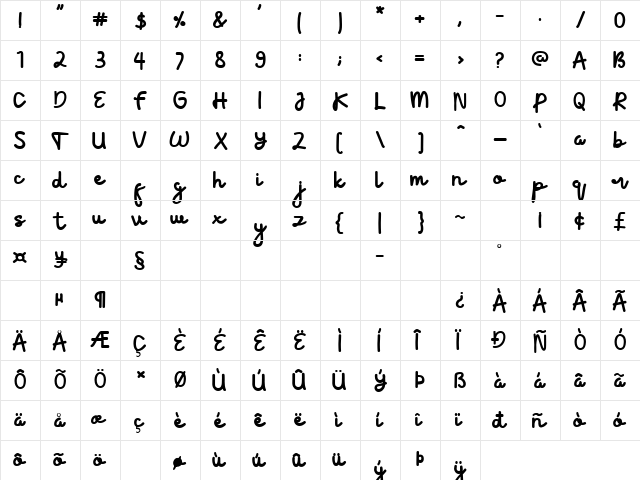
Velonia Regular
| Designer | Muhammad Isa Sulaiman |
Design Context for Velonia Typeface
Velonia offers clean, dependable letterforms without strong stylistic allegiance, making it a practical choice for designers who need flexibility.